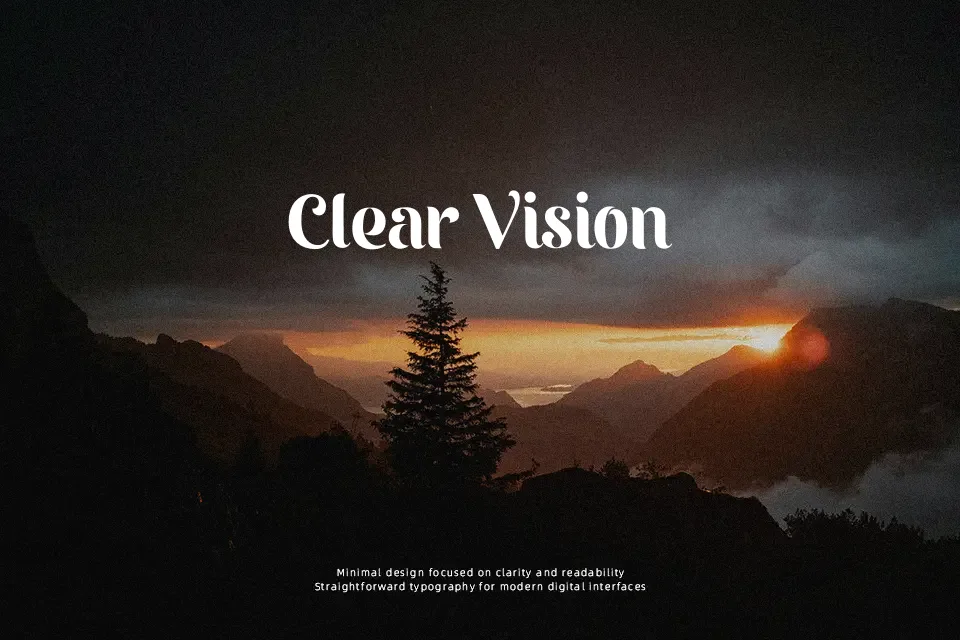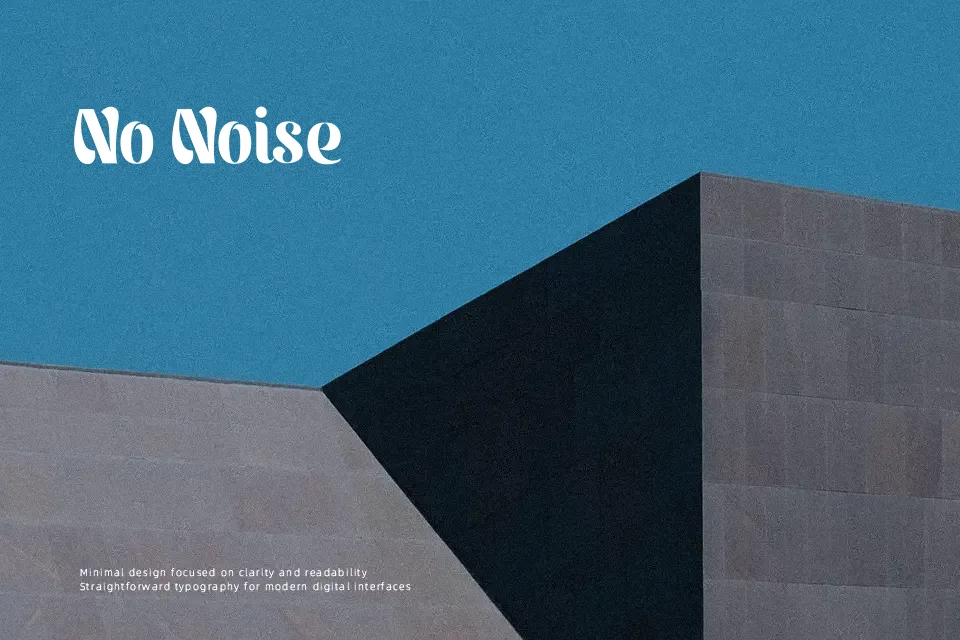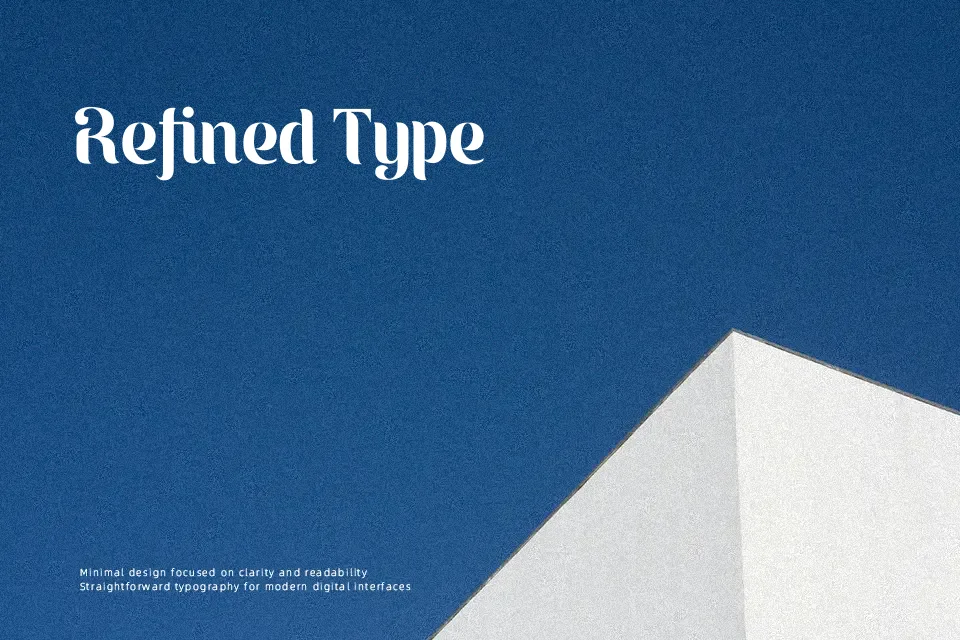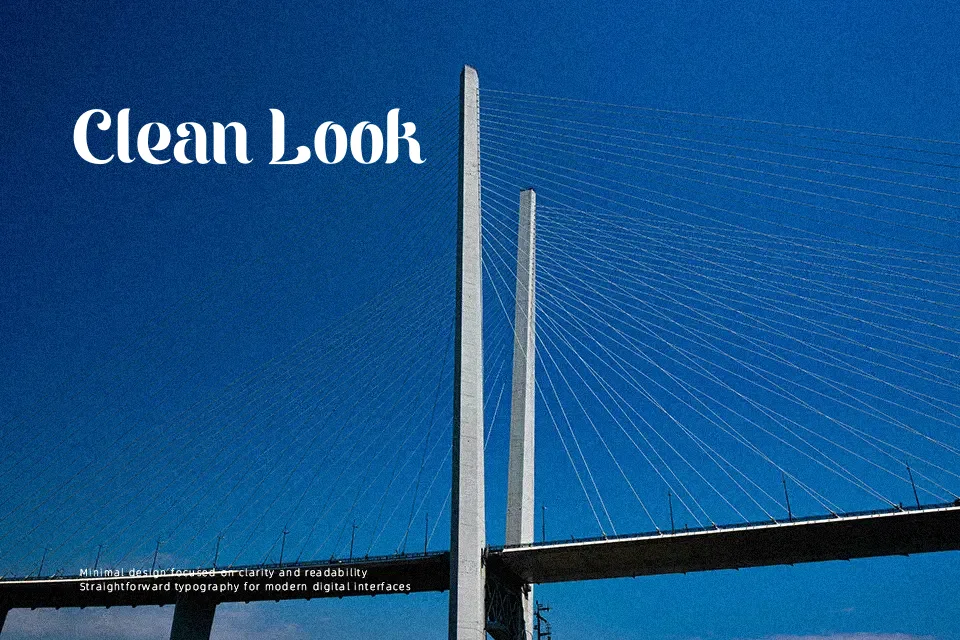
Ragantie Font
Designed by Asrul Asyary
Ragantie Font brings a unique handmade touch to display typography, with each letterform designed to ensure genuine originality. The strokes showcase a natural rhythm and balanced proportions that enhance its retro appeal without sacrificing structural stability. The carefully adjusted character spacing ensures that the bold forms remain highly readable across medium to large scales. The letterforms maintain strong visibility in prominent promotional graphics, though the hand-drawn details reduce continuous reading comfort in dense blocks of text. This typeface excels when applied to artistic focal points, adding a warm and authentic energy to the layout.
Best For: vintage festival posters, organic product packaging, coffee shop logos, bold promotional banners
Not Ideal For: dense editorial layouts, small interface labels, corporate reports, spreadsheet data
Perfect for headline, logo, and packaging, with a artistic and decorative style.